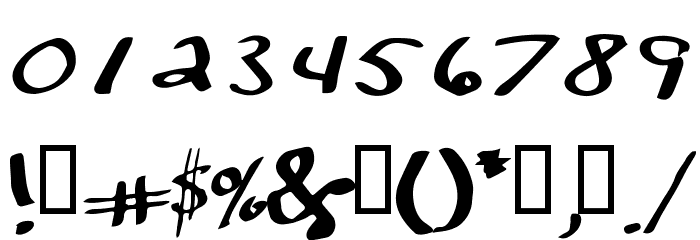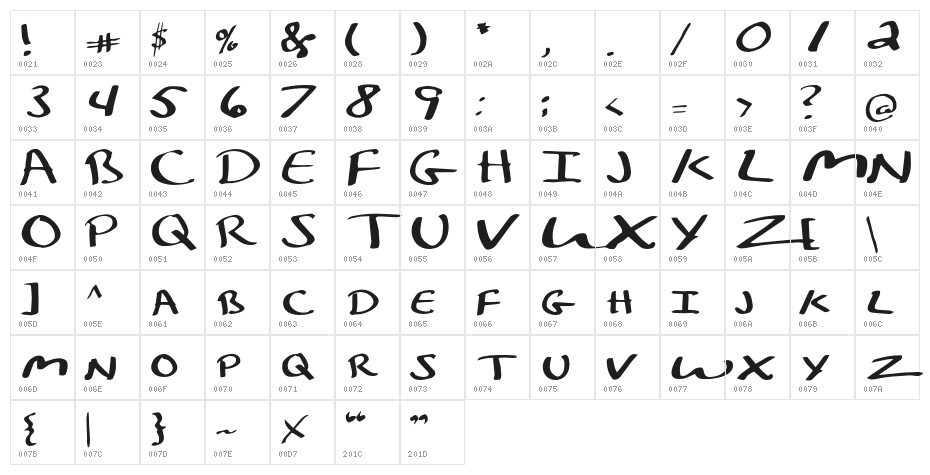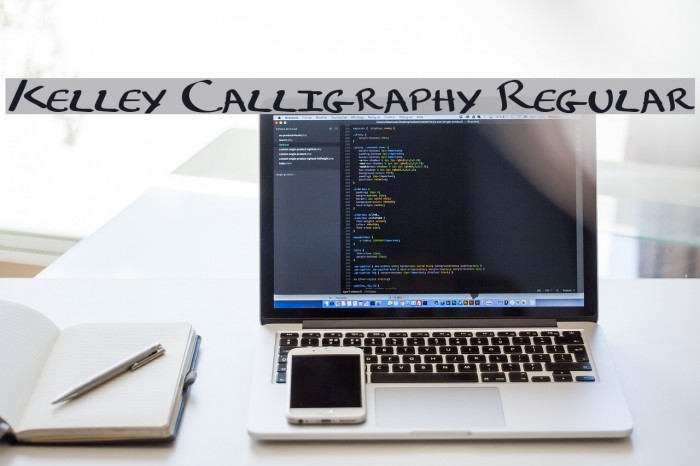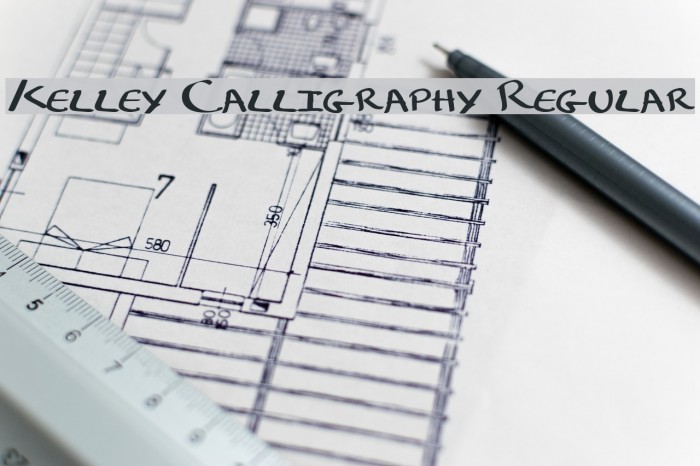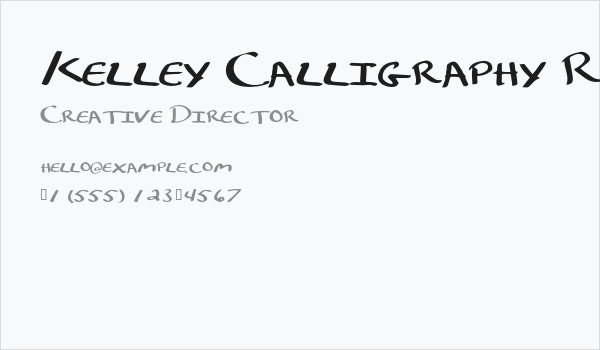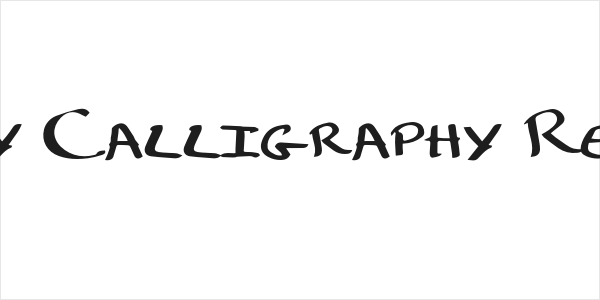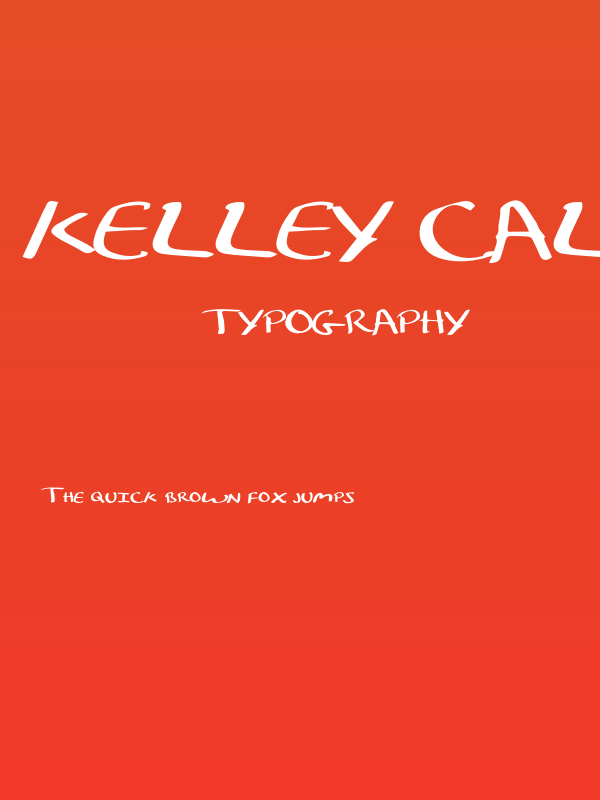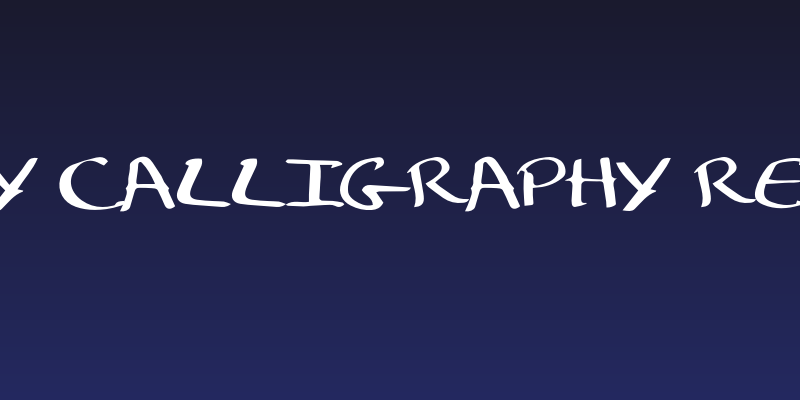
Kelley Calligraphy Regular Font
Kelley Calligraphy Regular Description
This font exudes a dynamic and artistic flair, characterized by its fluid and expressive strokes that mimic the elegance of traditional calligraphy. The letters are crafted with a sense of movement, featuring varying stroke widths that add a lively rhythm to the text. The uppercase letters are bold and prominent, while the lowercase letters maintain a graceful continuity. The numerals and special characters are designed with the same artistic touch, ensuring a cohesive look across all elements. This font is perfect for projects that require a personal and artistic touch, such as invitations, greeting cards, and creative branding.
Austin Kelley